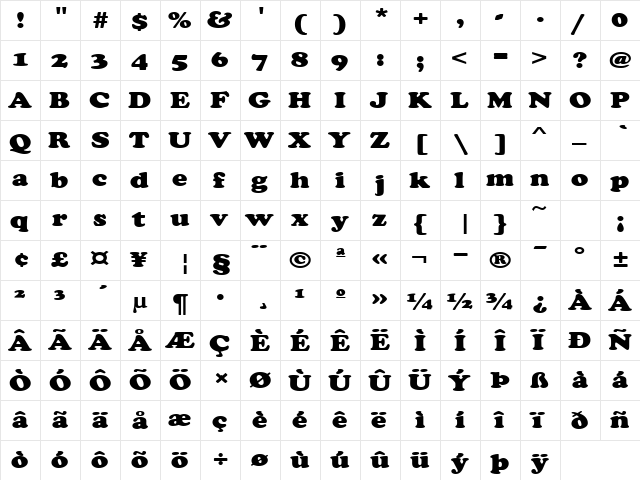
Marshmallow-Extended Normal
Design Context for Marshmallow-Extended Typeface
Marshmallow-Extended offers clean, dependable letterforms without strong stylistic allegiance, making it a practical choice for designers who need flexibility.